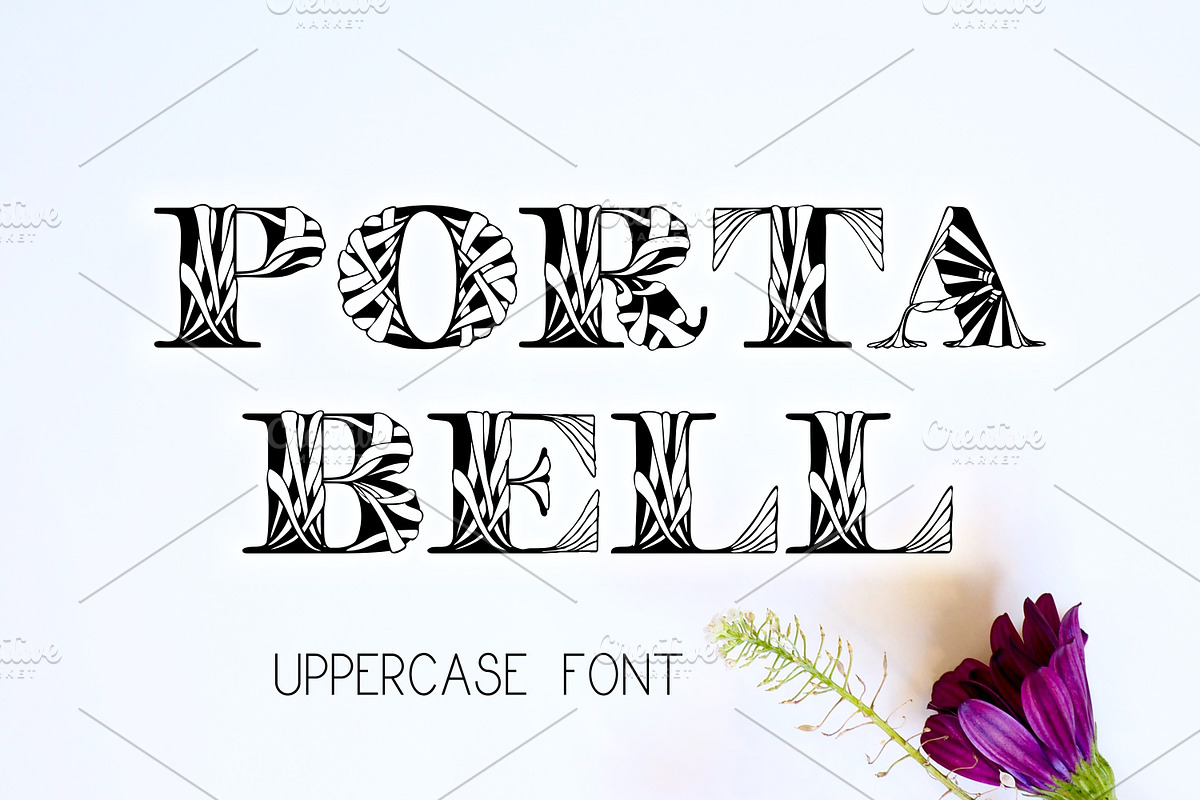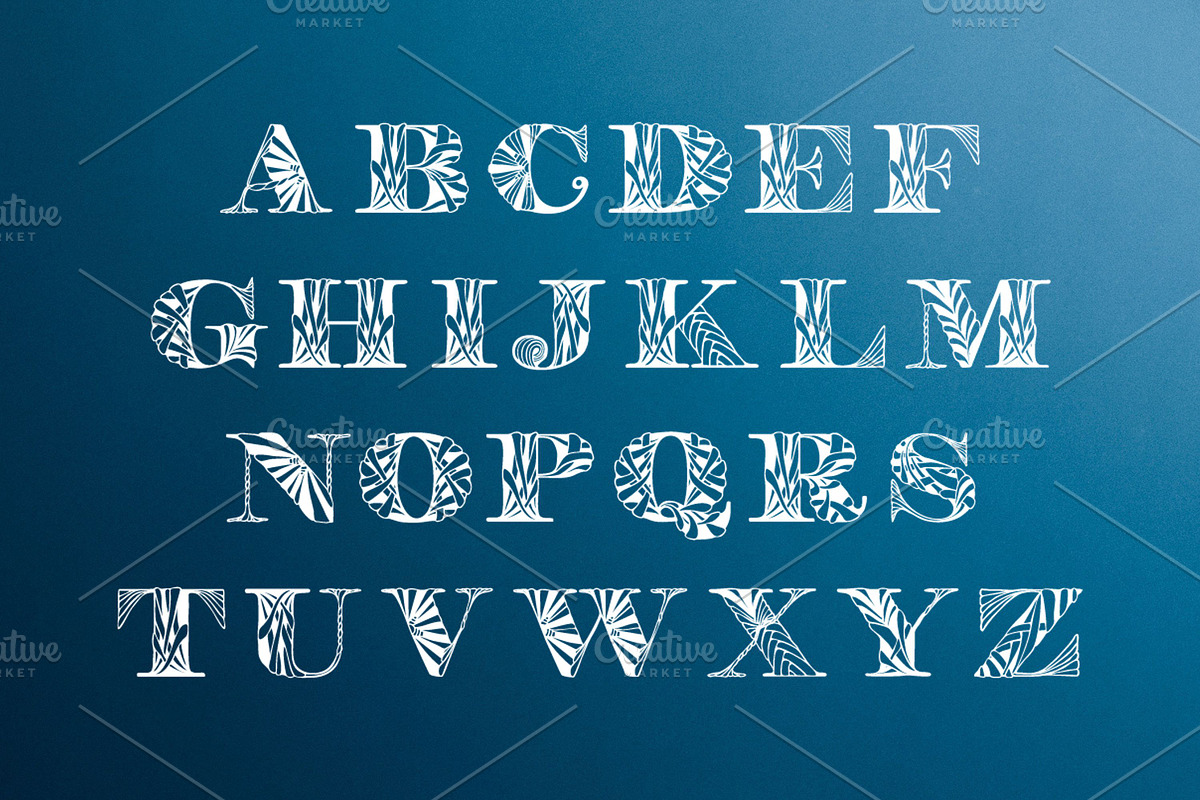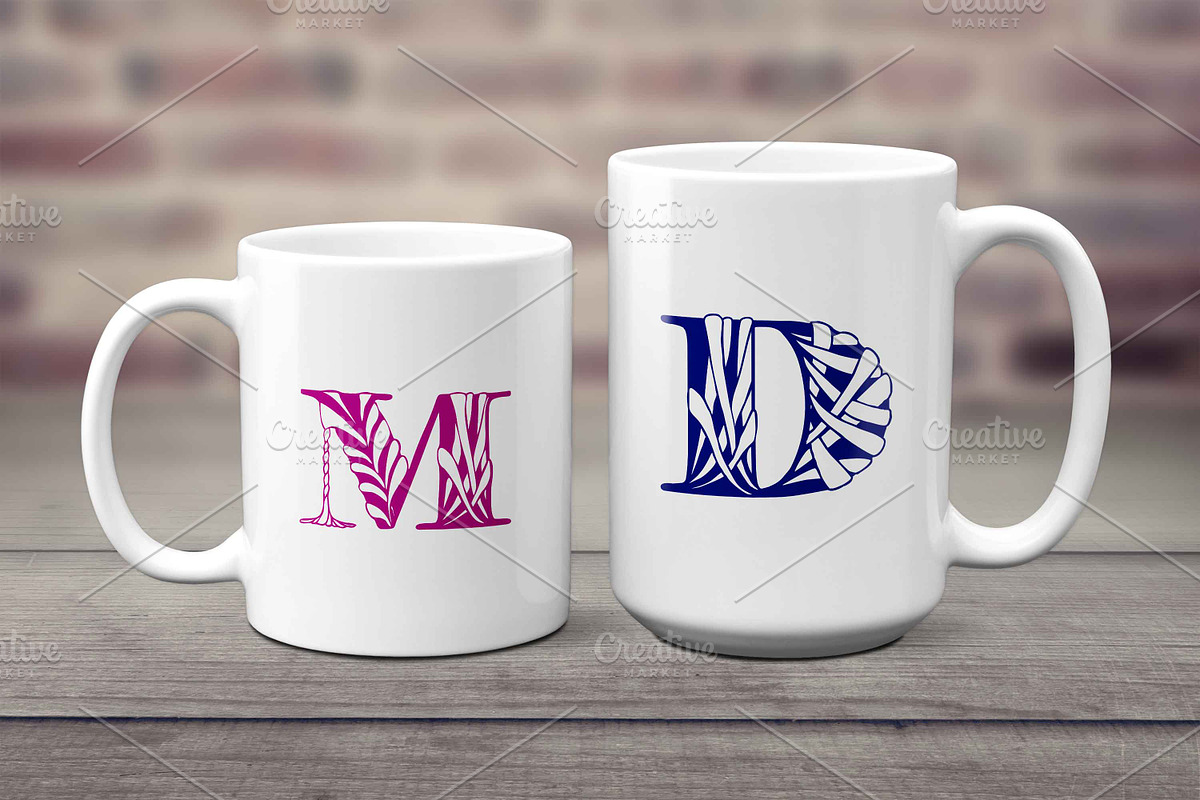
Portabell
Portabell is an all uppercase font.
It has a great look and is perfect if you mix it with your various craft designs.
Whether you’re using it for crafts, digital design, logos and branding, this font has the potential to become your favorite font, no matter the occasion.
Character set are as it is shown in the example - uppercase letters only!